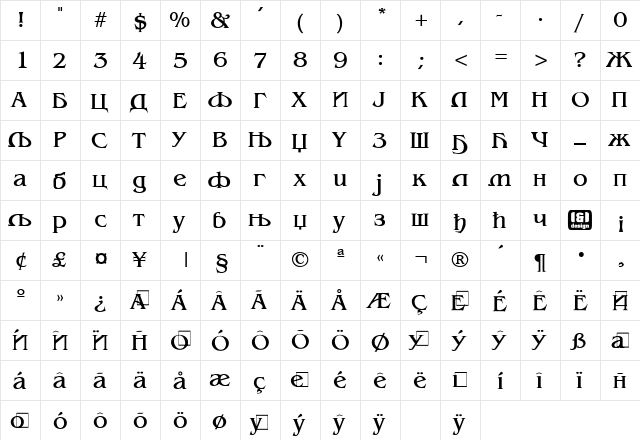
BenguiatCirilica Regular Font Preview
BenguiatCirilica Regular
BenguiatCirilica Regular Font Details
Design Context for BenguiatCirilica Typeface
BenguiatCirilica is a composed and adaptable typeface that performs quietly and consistently across a wide range of design contexts.